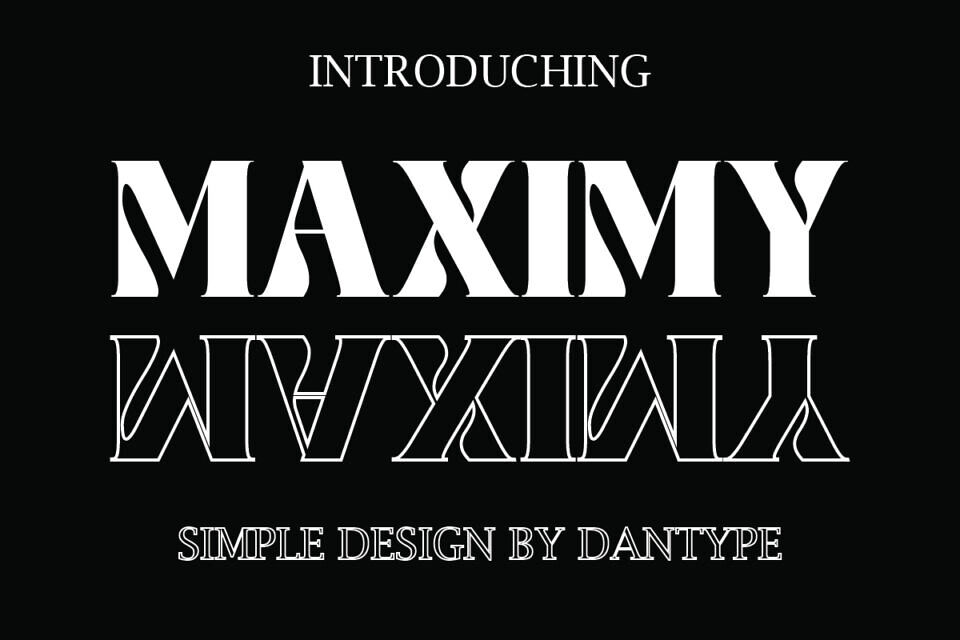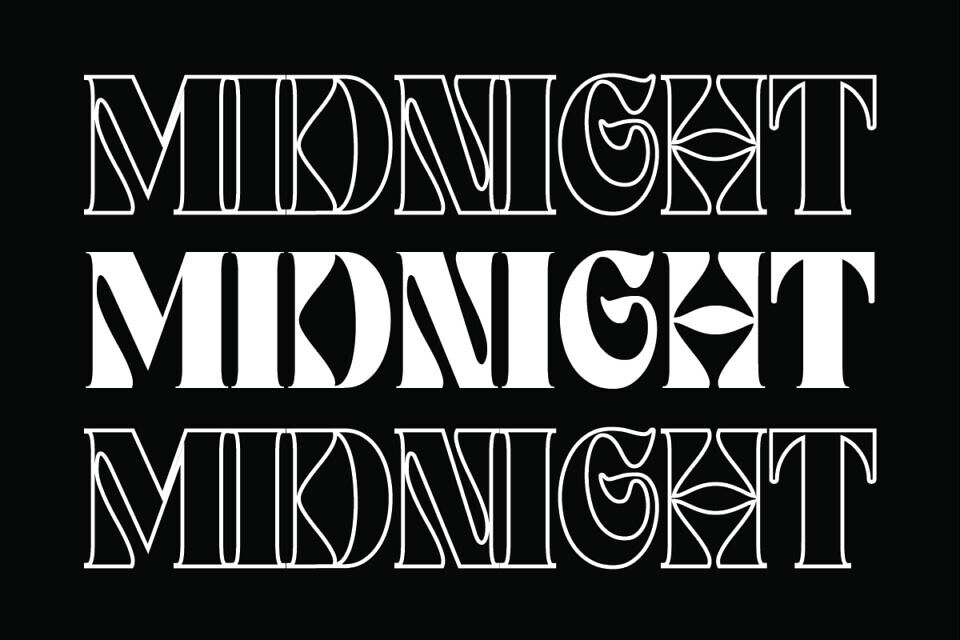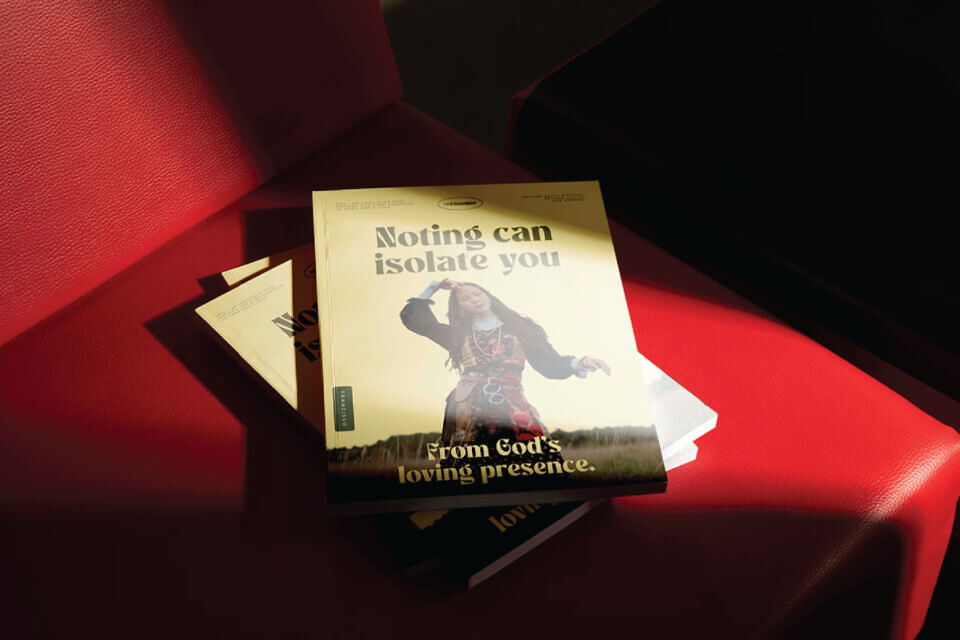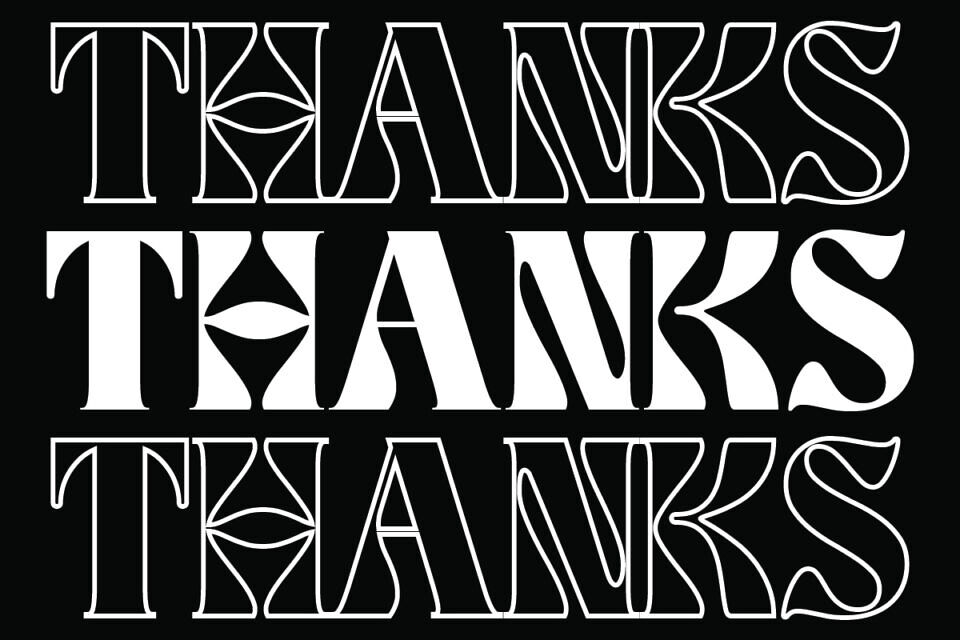
Maximy Font
Maximy is Psychedelic serif display font by Dan Type. This font would be perfect for photography, watermarks, social media posts, advertisements, logos & branding, invitations, product design, labels, stationery, product packaging, special events, and other projects.